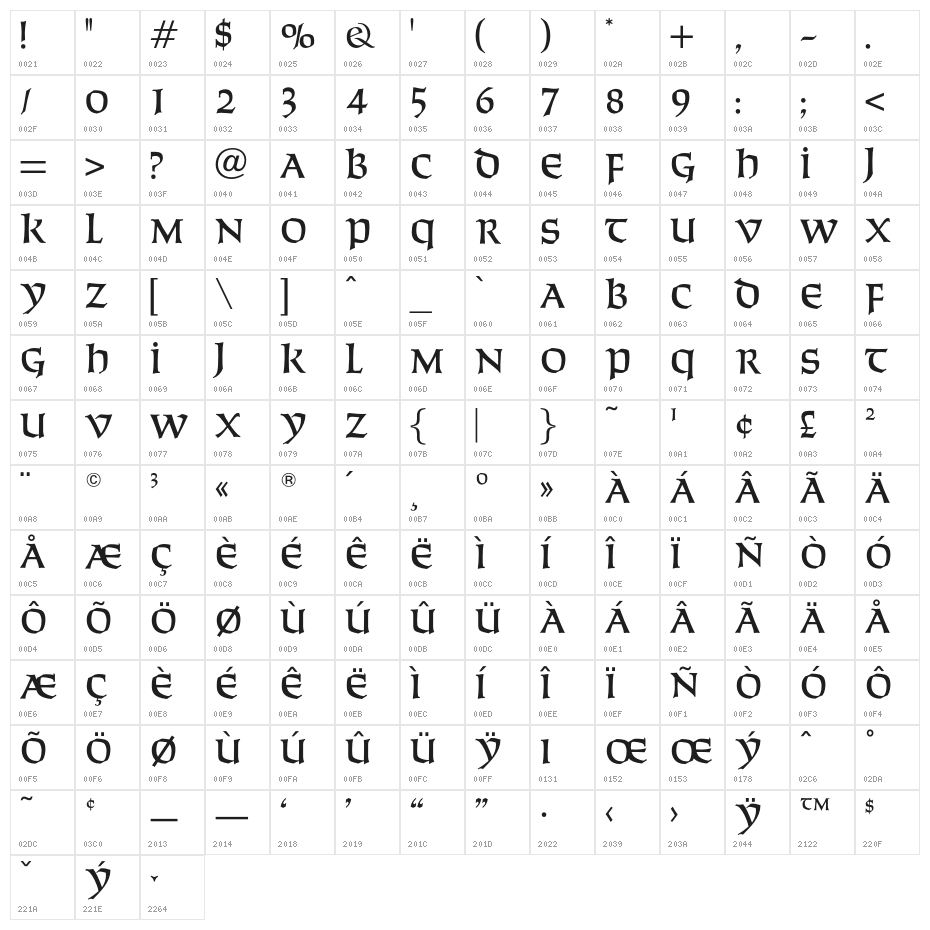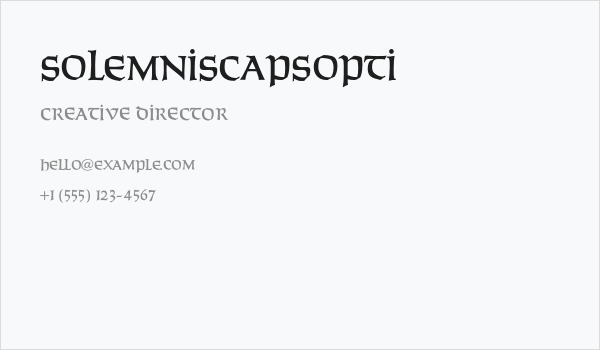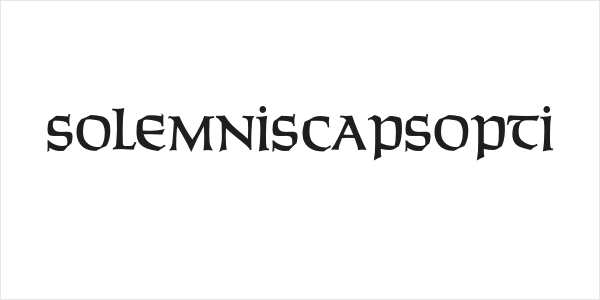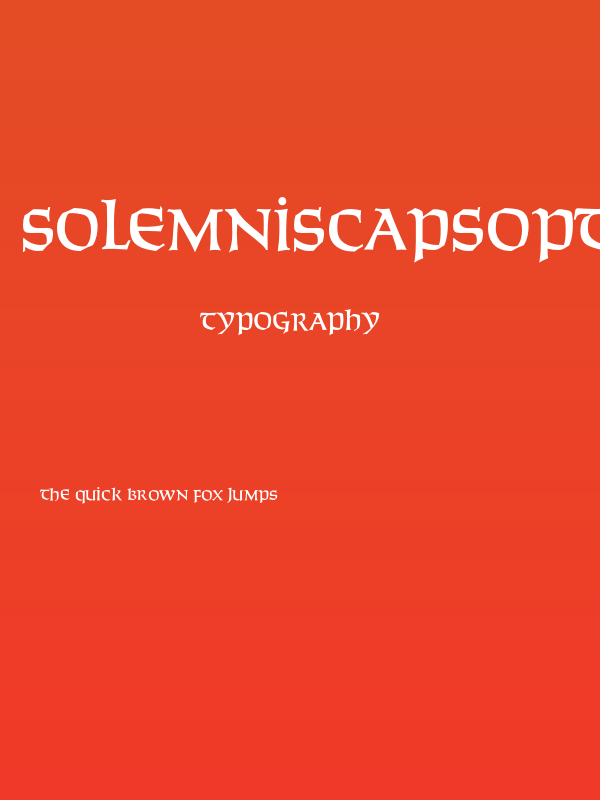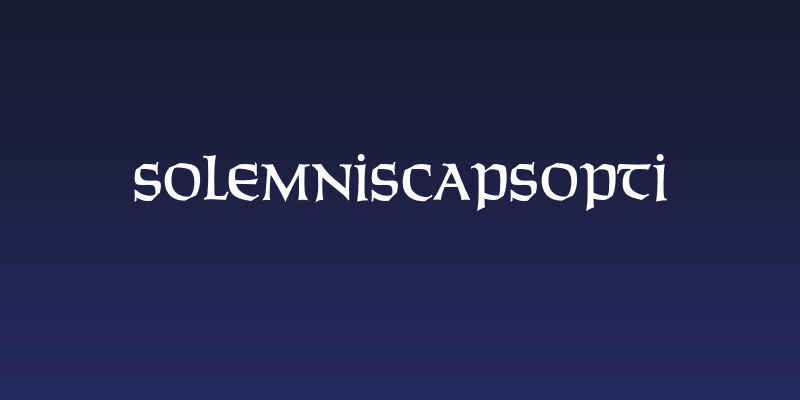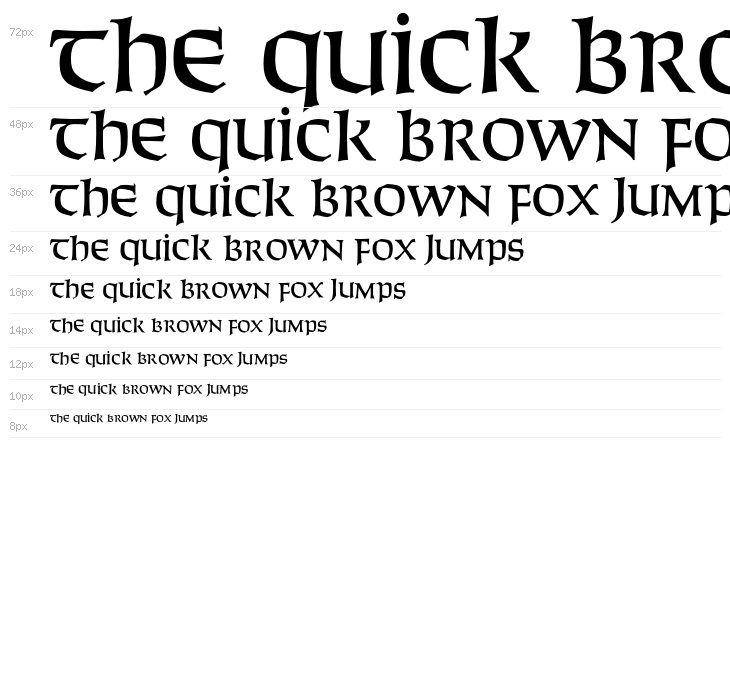
SolemnisCapsOpti Font
SolemnisCapsOpti Description
This font exhibits a strong, bold presence with its sharp, angular lines and distinct Gothic influence. The uppercase letters are particularly striking, with exaggerated serifs and a medieval flair that evokes a sense of history and tradition. The lowercase letters maintain this style, offering a cohesive look throughout. Numbers and special characters are equally stylized, ensuring consistency across all text elements. The overall design is both decorative and functional, making it suitable for a variety of creative applications.
| Proposed Projects | Ideal for historical or fantasy-themed projects, book covers, posters, and branding that requires a dramatic and traditional aesthetic. |